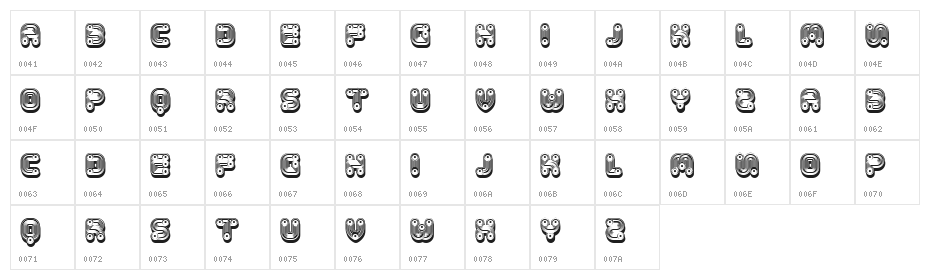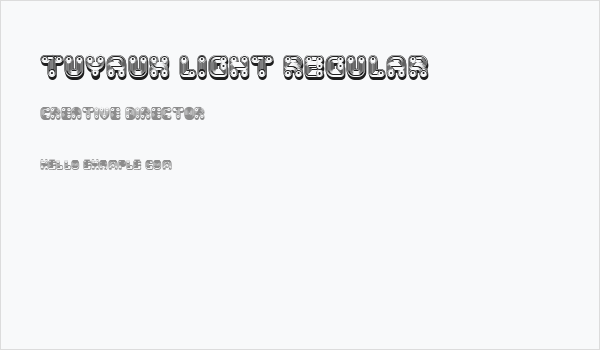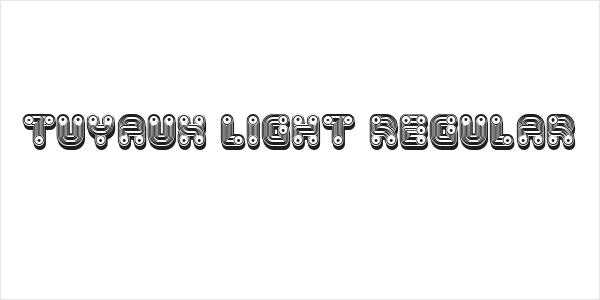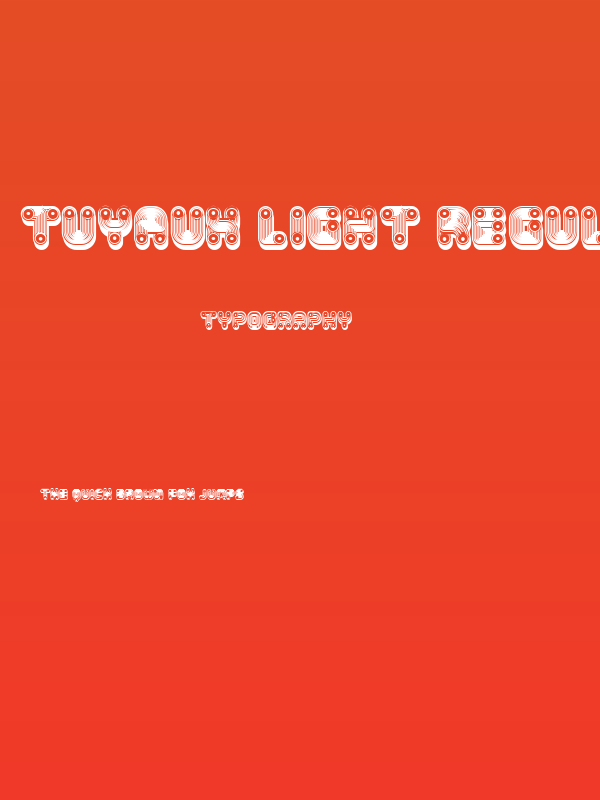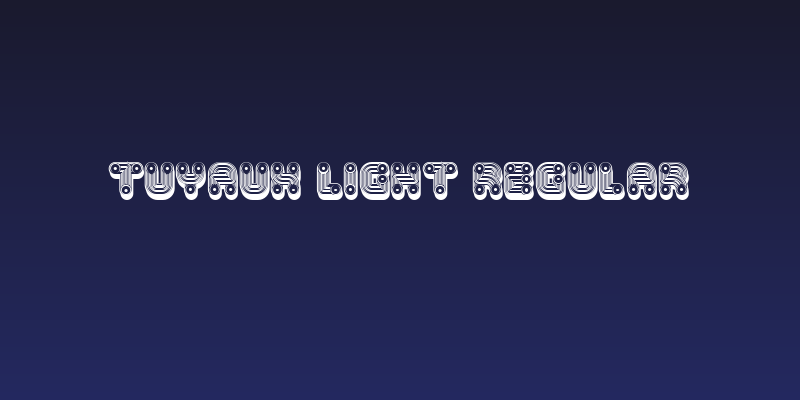
Tuyaux Light Regular Font
Tuyaux Light Regular Description
This font features a unique and intricate design with a layered, tubular appearance. Each character is composed of multiple concentric lines, creating a sense of depth and complexity. The rounded edges and consistent line thickness give it a playful yet structured look. The design is reminiscent of pipes or circuits, making it suitable for modern and tech-oriented themes. The font maintains a consistent width across all characters, ensuring uniformity and balance. Its bold and decorative style makes it stand out, ideal for eye-catching designs.
| Proposed Projects | Ideal for tech-themed posters, futuristic branding, video game titles, and creative digital art projects. |